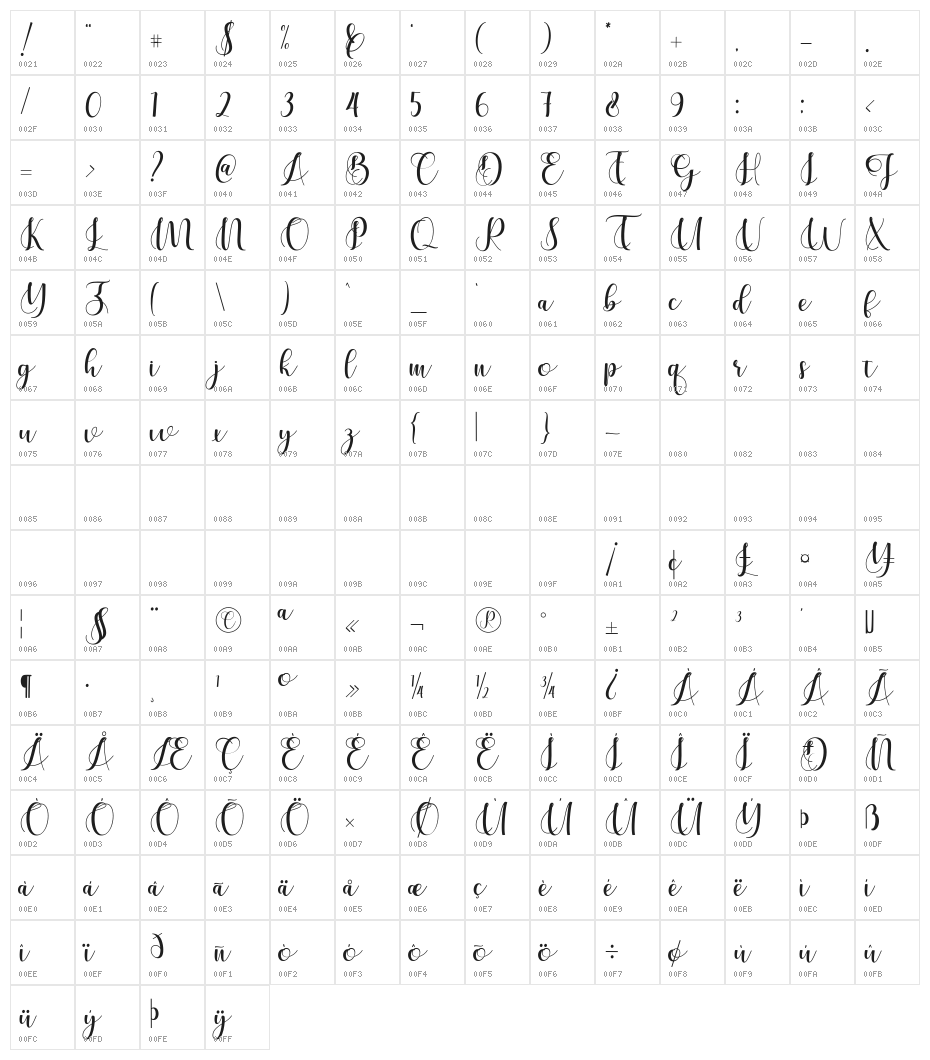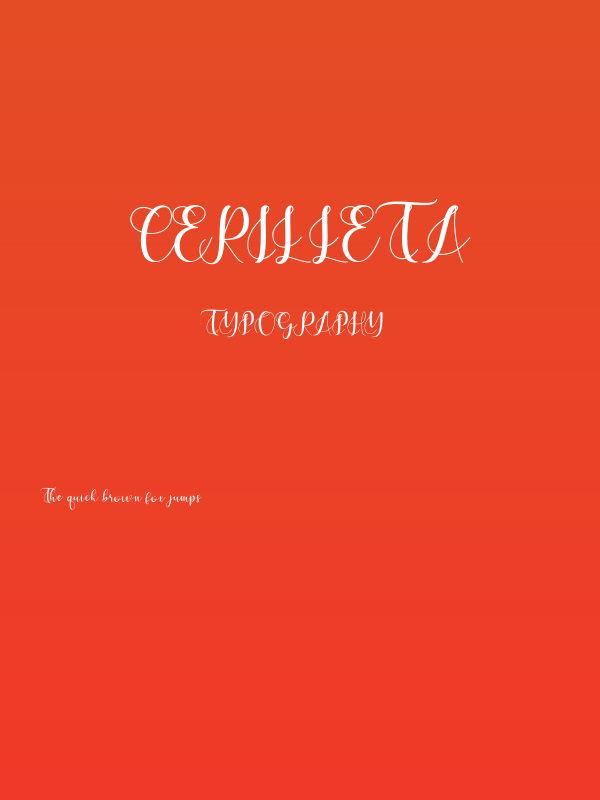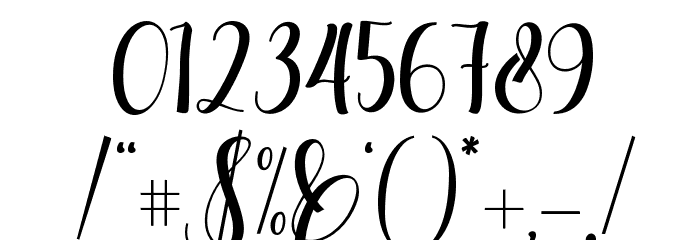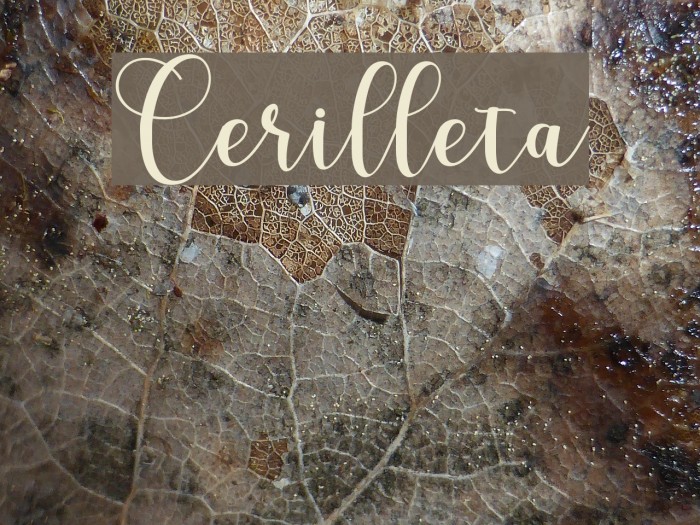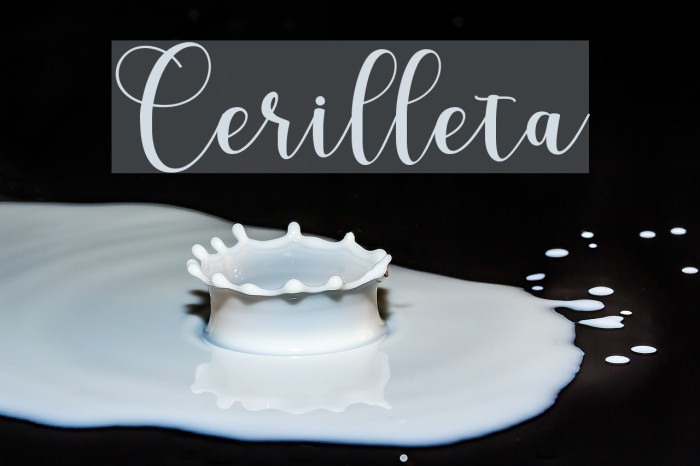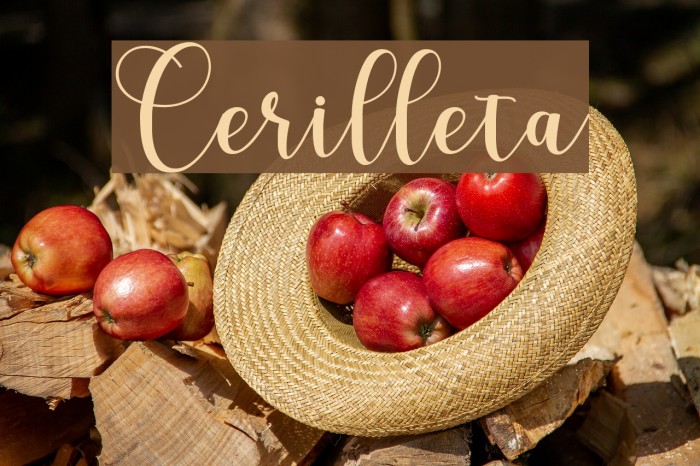
Cerilleta Font
Cerilleta Description
This elegant script font features a flowing, cursive style with intricate loops and swashes, giving it a sophisticated and artistic appearance. The uppercase letters are particularly ornate, with elaborate flourishes that add a touch of drama and elegance. The lowercase letters maintain a consistent flow, enhancing readability while still retaining the decorative nature of the script. The numerals are styled to match the overall aesthetic, with slight curves and a graceful appearance. Special characters are thoughtfully designed to complement the letterforms, making this font versatile for various design needs.
| Overall Style | Elegant, Artistic |
| Use Case | Logos, Invitations, Decorative text |
| Proposed Projects | Ideal for wedding invitations, elegant branding, greeting cards, and luxury packaging. |